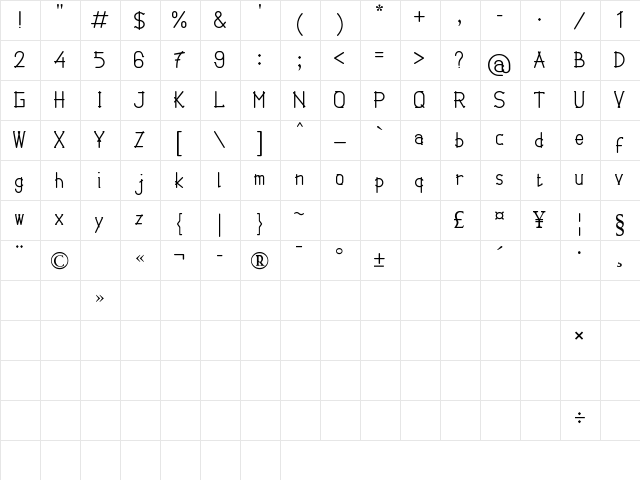
StiXuits Regular
Design Context for StiXuits Typeface
StiXuits is a composed and adaptable typeface that performs quietly and consistently across a wide range of design contexts.